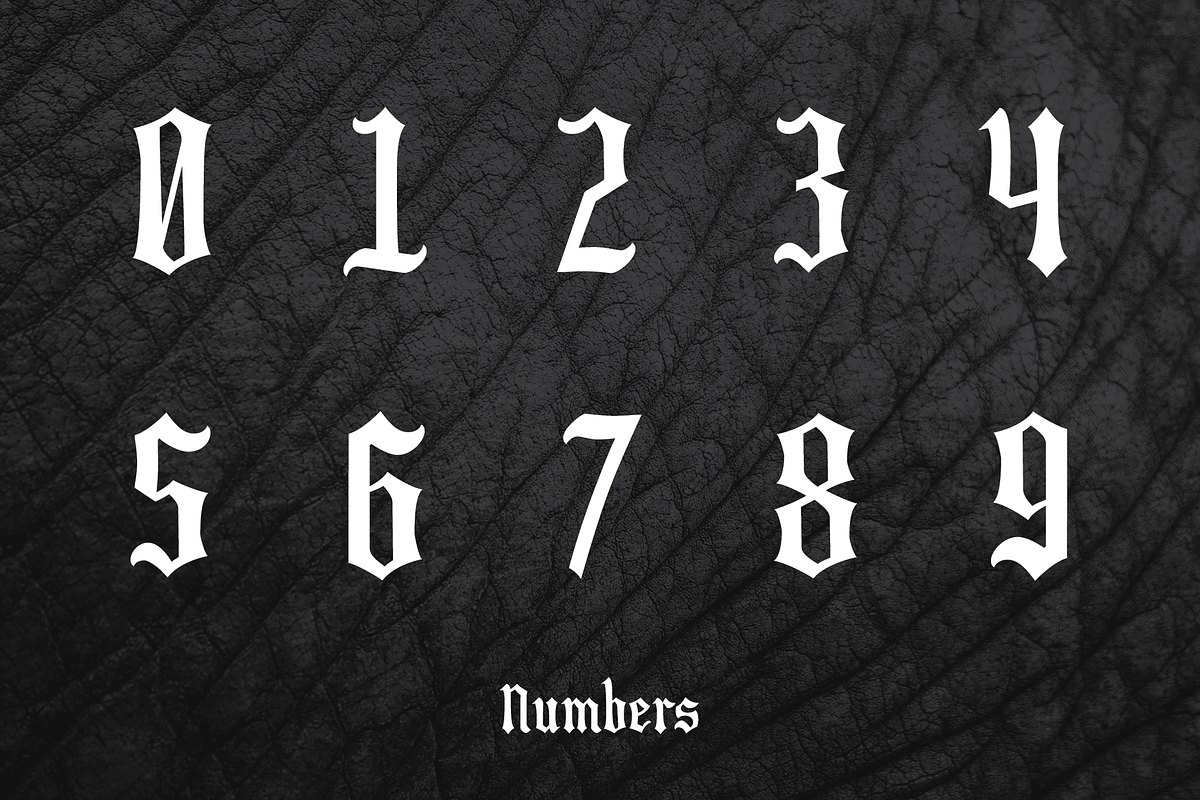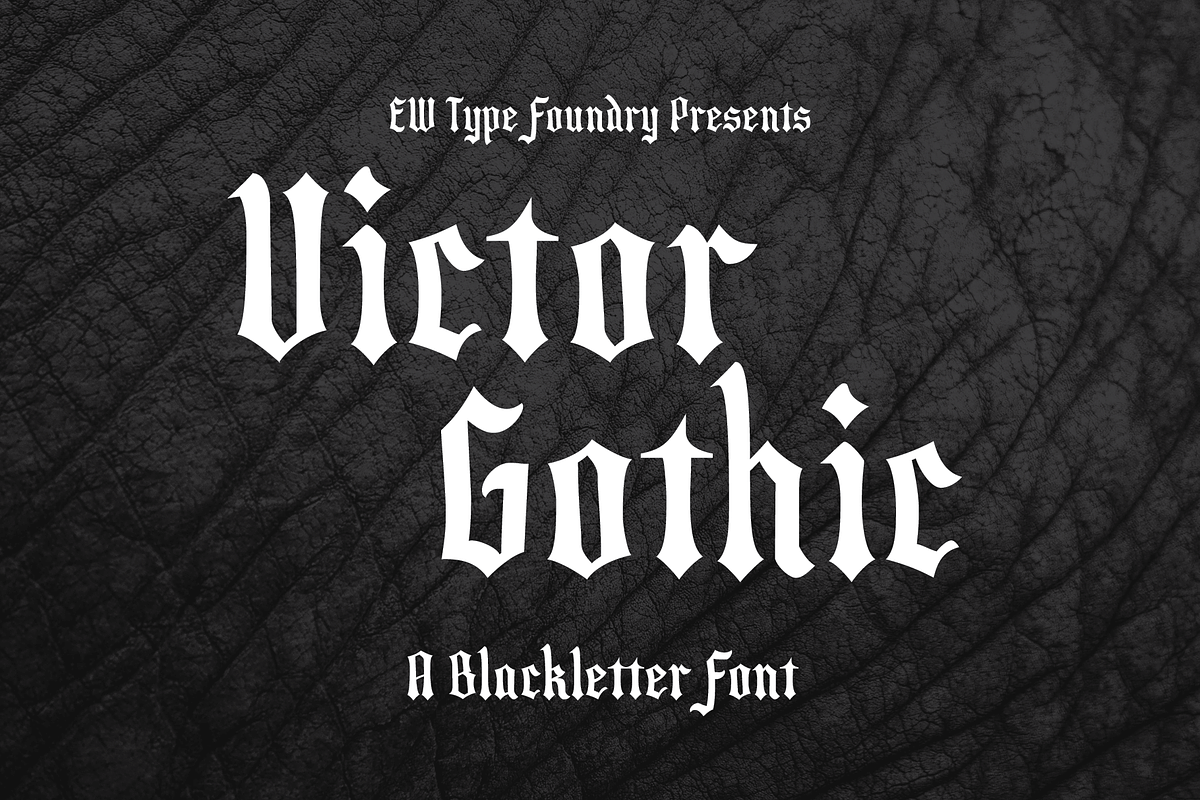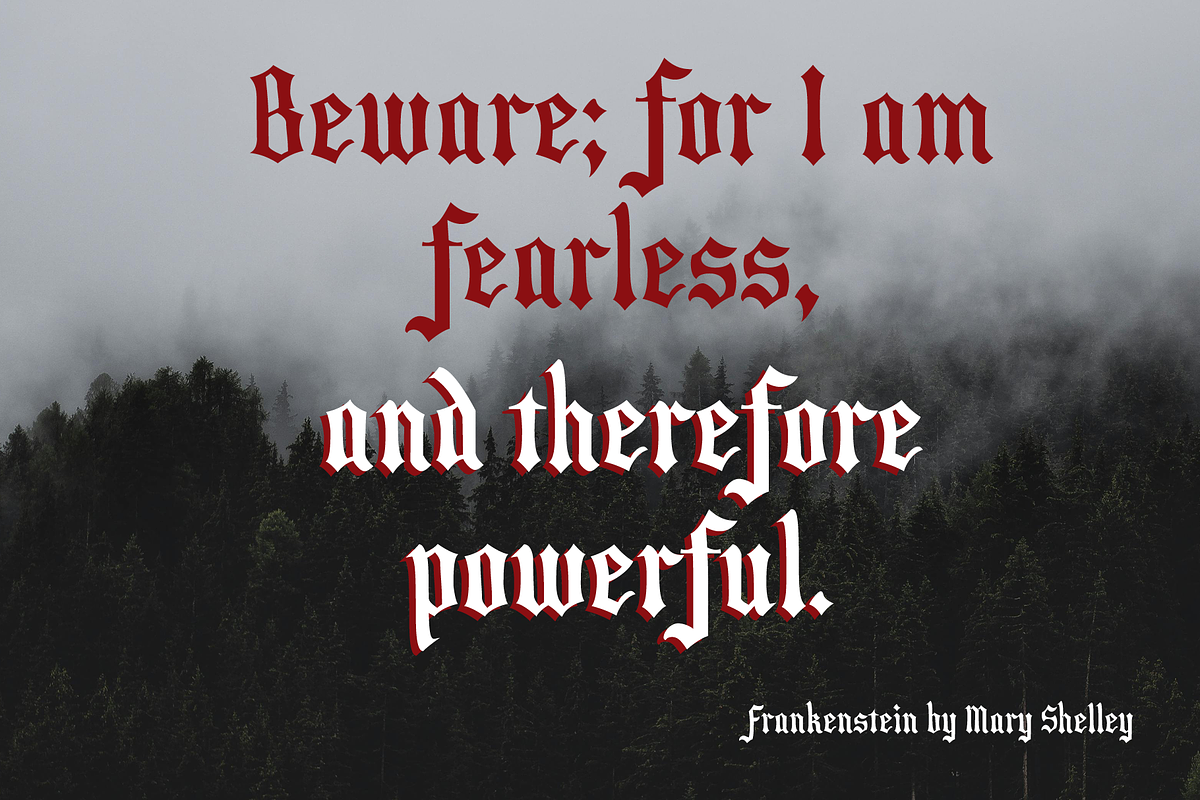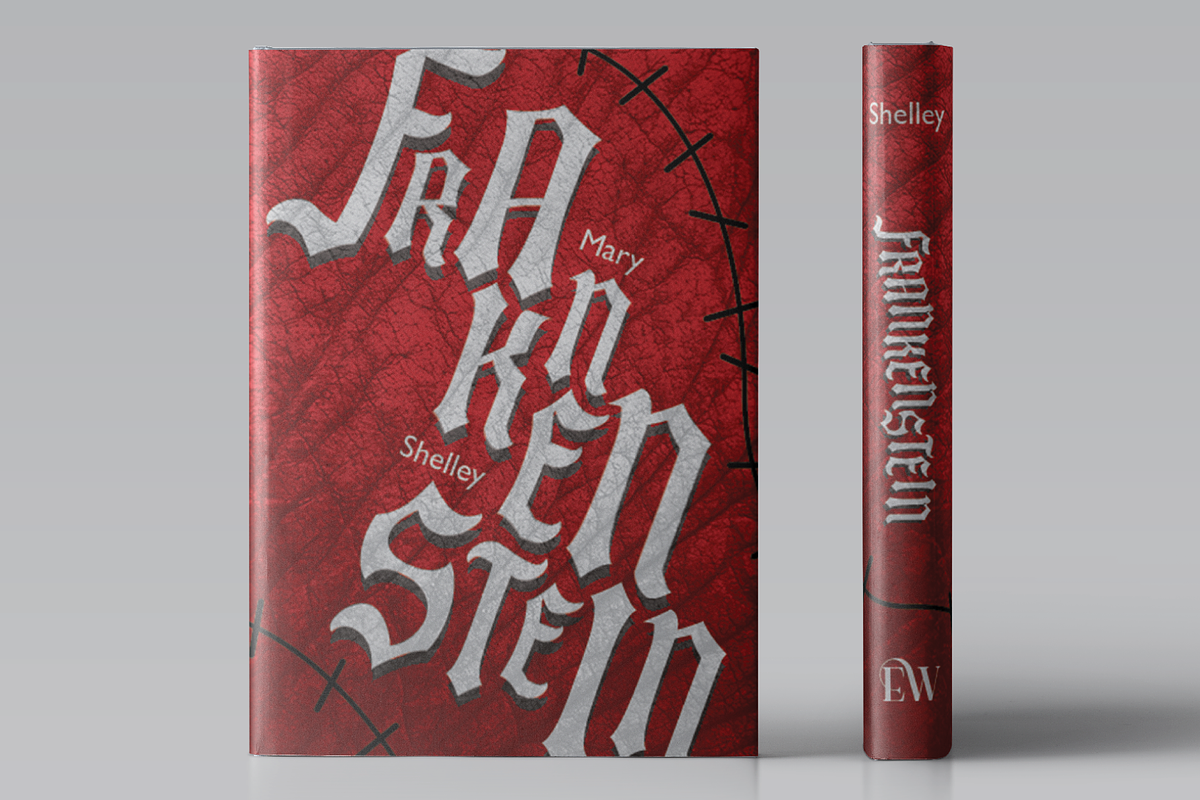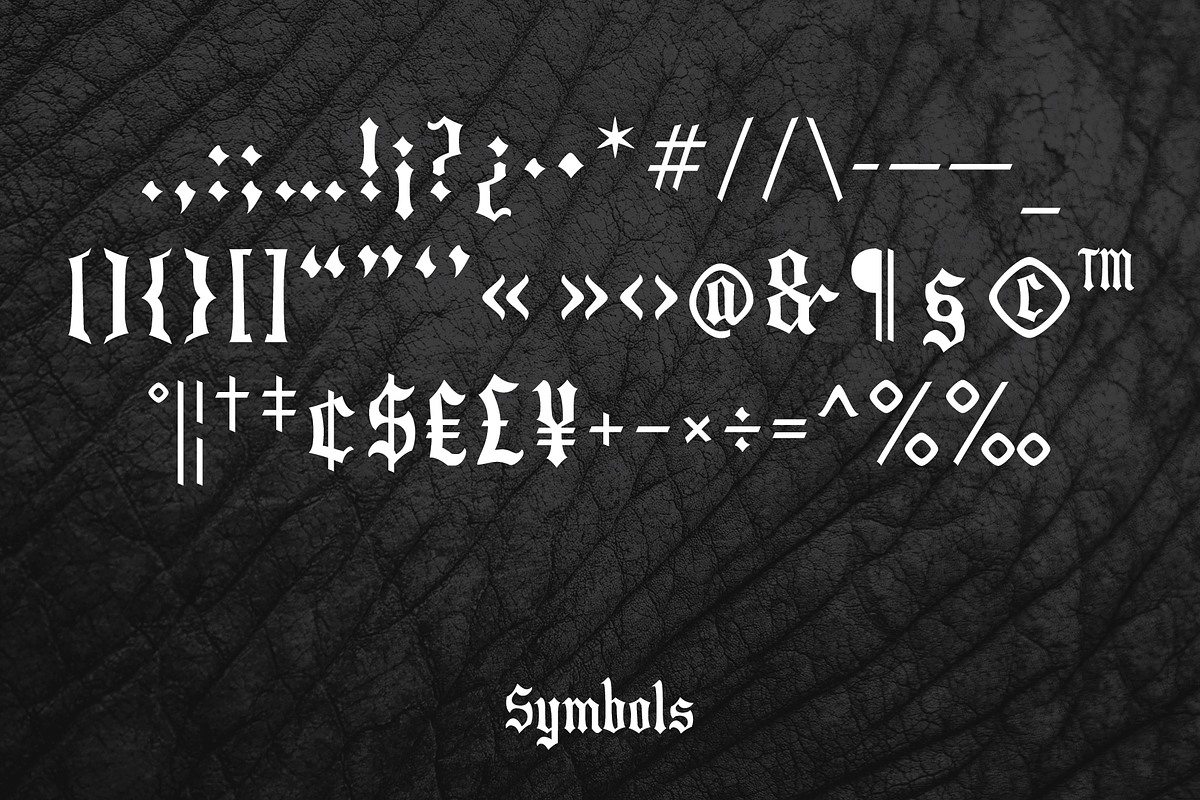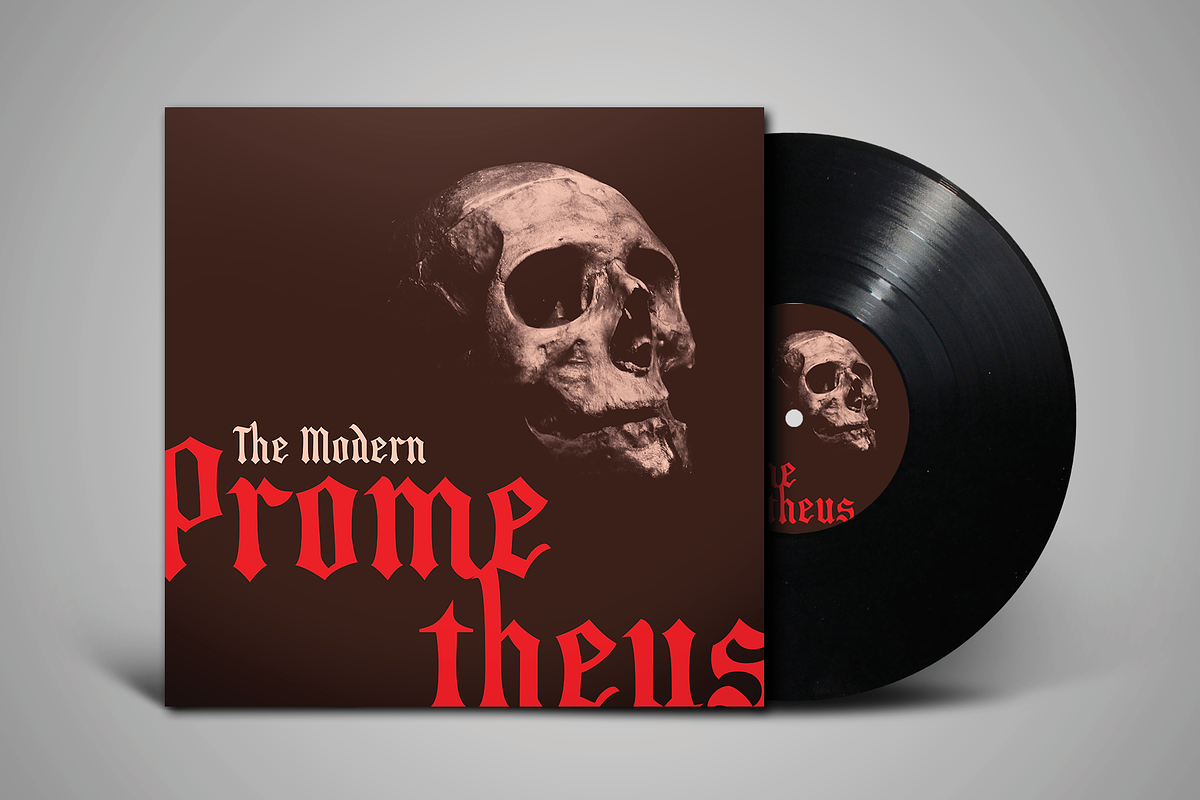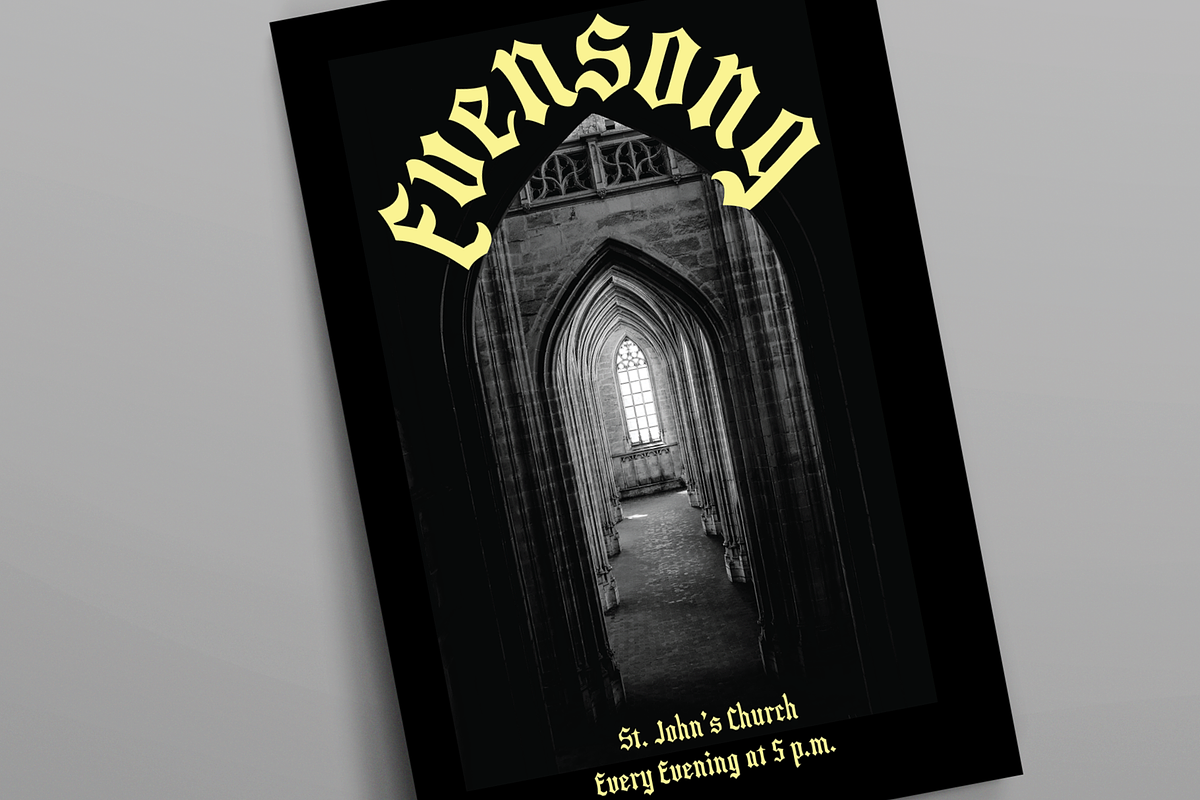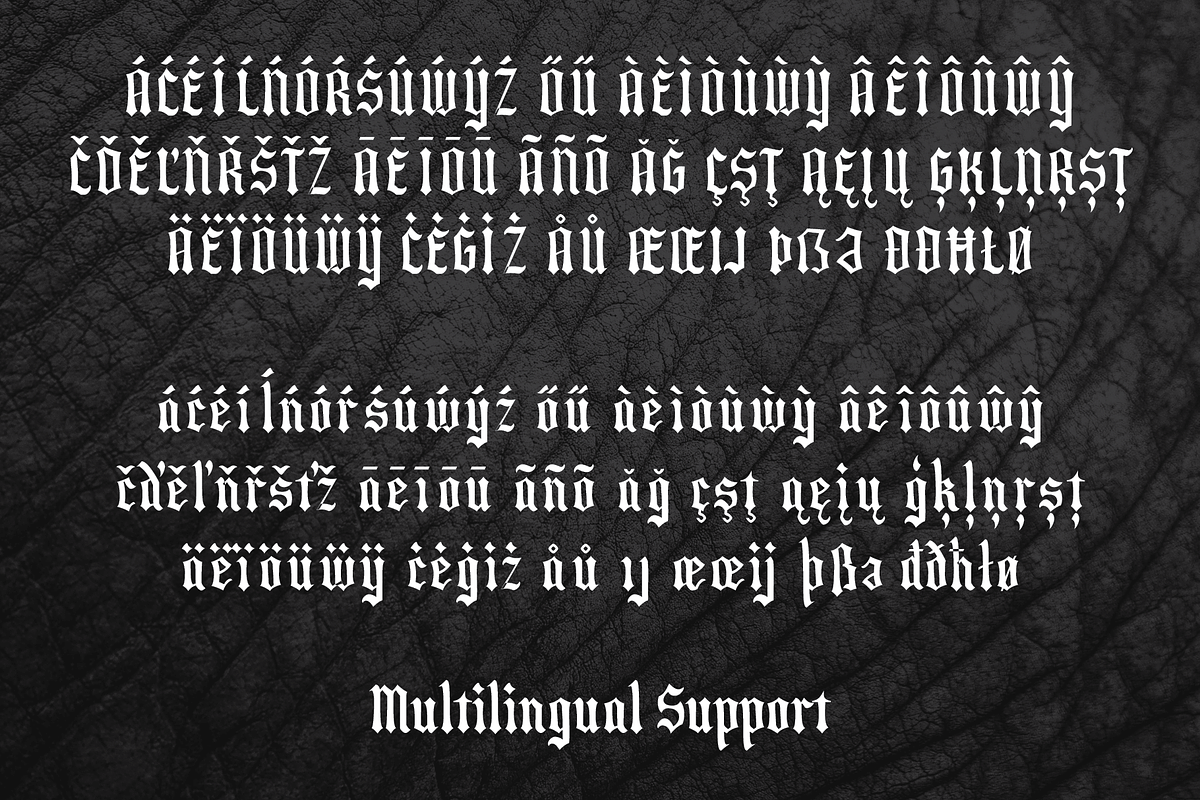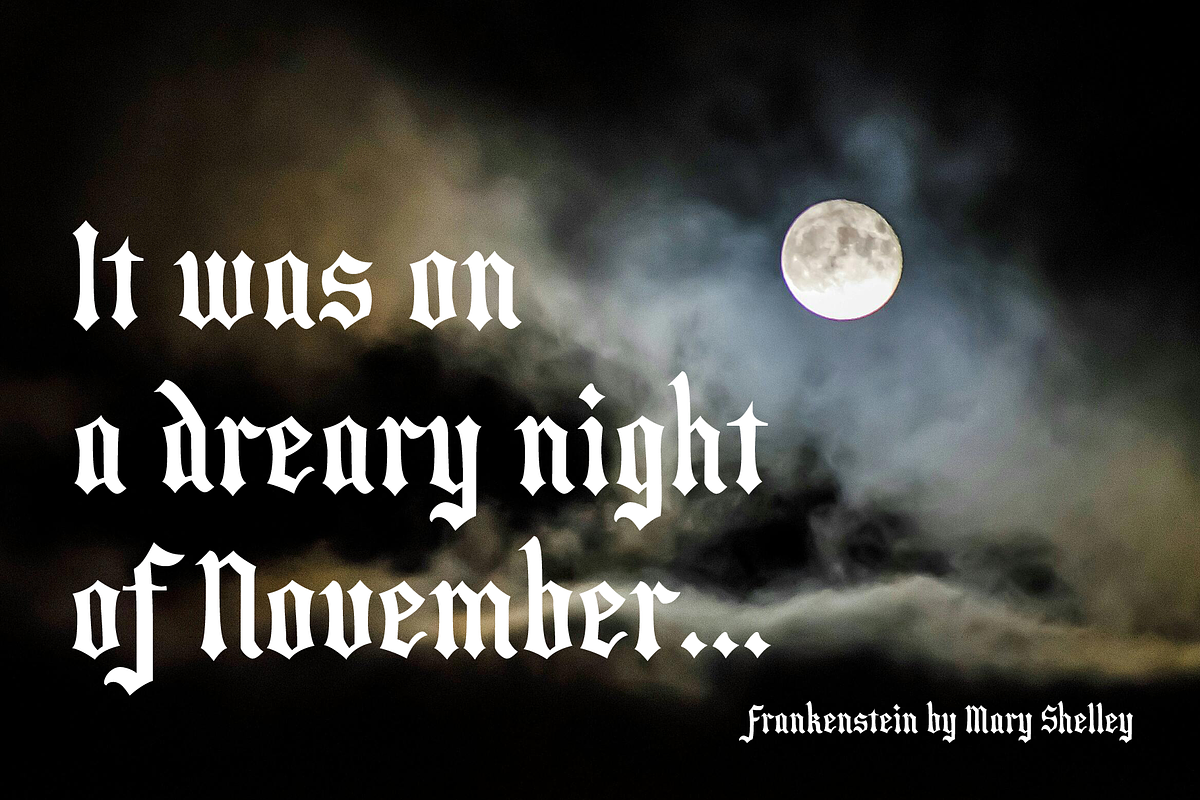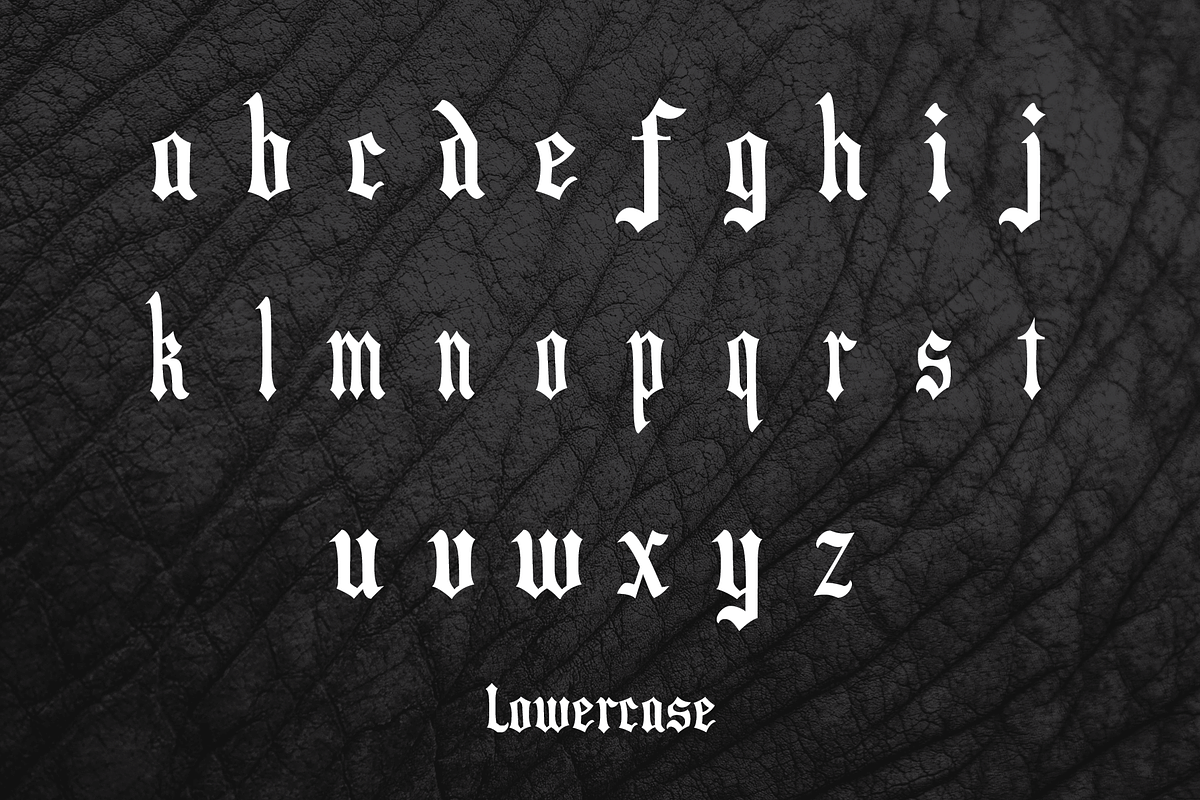
Victor Gothic
Victor Gothic is a blackletter script font inspired by the classic novel Frankenstein by Mary Shelley. Drawing on medieval calligraphy, this Gothic script is perfect for a variety of applications, including book covers, classical concert posters, or rock album covers.
The font file includes symbols and multilingual support for some European and South American languages. Check the preview images for the inclusion of specific diacritics.